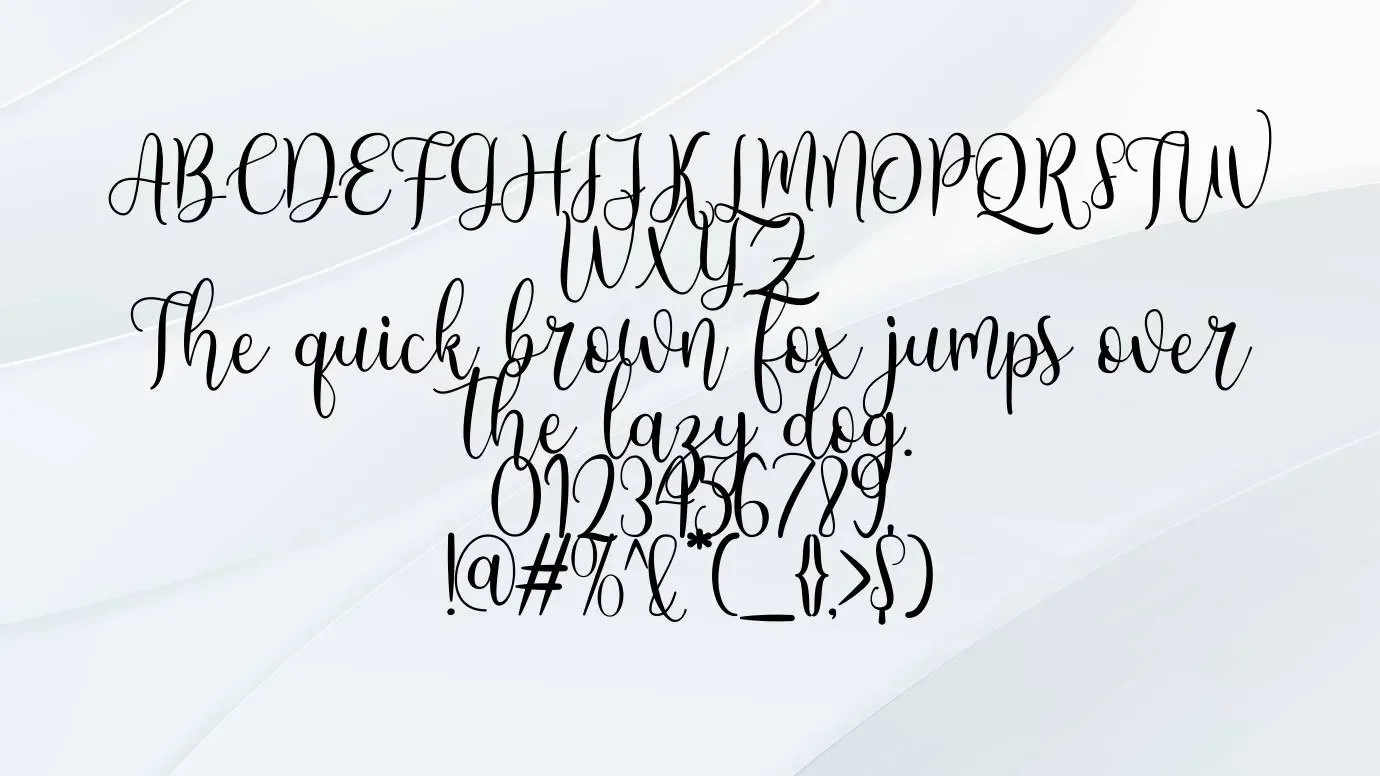
Today, We are going to introduce a handwritten typeface known as Angelic Font. This amazing font has fantastic style letters that consist of more than 132 including Latin-1 Supplement, uppercase letters, lowercase letters, numbers, and punctuation marks. It has smart handwork and international standards.
This interesting font is perfect for the latest handwritten designs and display card designs. It is best for watermarking on different pages, documents, and blogs. Many writers pick this font for book cover designs. It is best for pairing with its similar font known as a shadow into light font.
It has many useful features that’s why a lot of designers love and use this font for their personal purposes. The long swashes of this font are bold and strong look. It was designed by creativeletter. This font has neater look that is best for soft designing purposes.
Reason to Use Angelic Font
You can use this amazing font for different types of website design purposes. Due to the huge number of fans of this font, the uses of this amazing typeface are increasing all over the world. This new font is perfect for printing and other official purposes. It is also suitable for use in marvelous handwritten designs.
This stylish font is also suitable for gaming logos, emblems designs, banner designs, card designs, postcard designs, and a lot more. It is best for template designs, theme designs, thumbnails channels designs, and blog designs.
You can use this soft look font for different professional projects. It is also suitable for comic and ebook cover designs, postcard designs, and many other interesting designs. This handwritten font is best for pairing with andy font which is a famous typeface.
Angelic Font Family (Includes Total 01 Type)
- Angelic-Regular
What kind of font is Angelic Font?
This beautiful font was designed and shared by creativeletter. It comes in the handwritten category in the font family.
Is there any similar to Angelic Font?
There are a huge number of similar fonts to this typeface but the most similar font to this typeface is mix palmer script font.